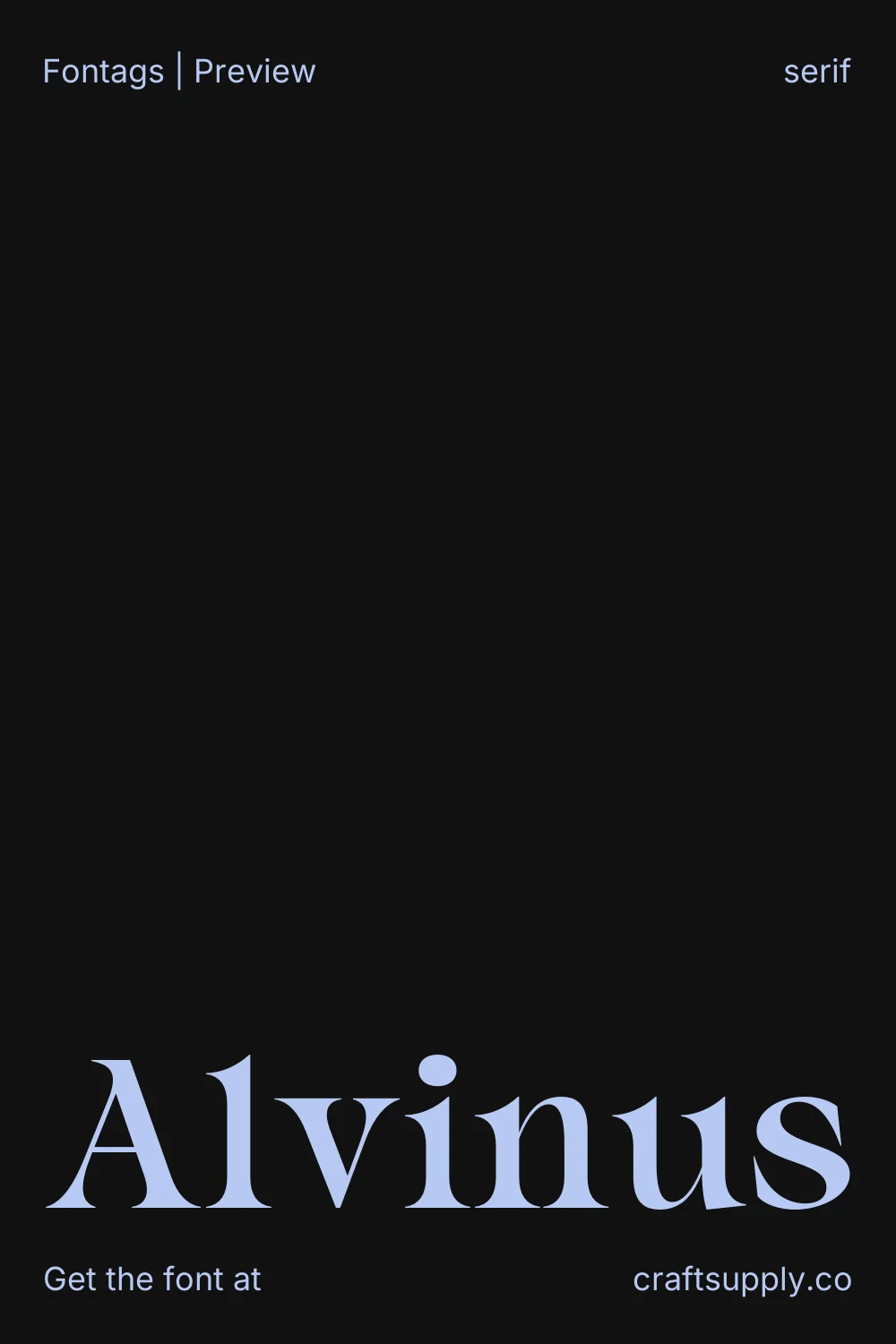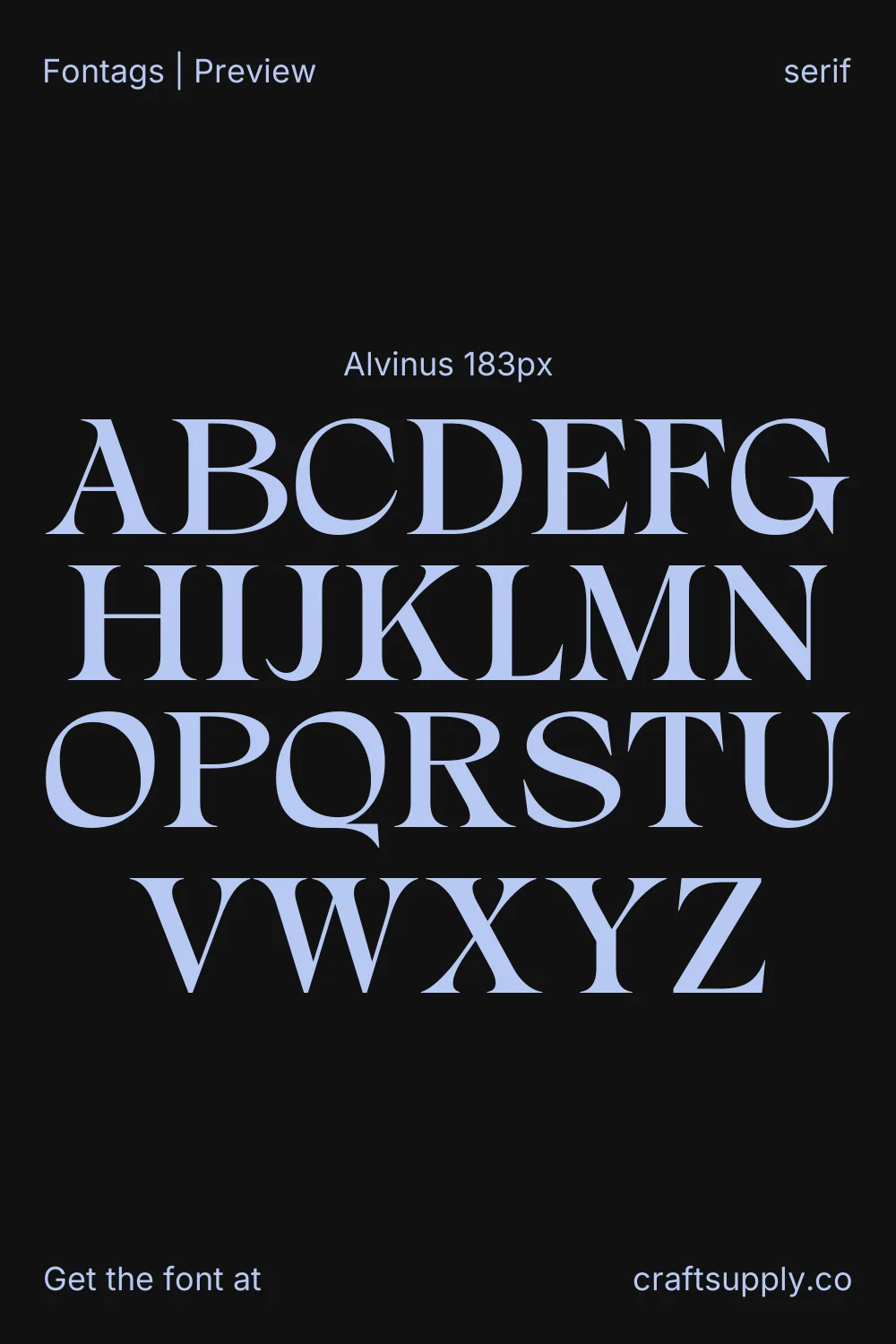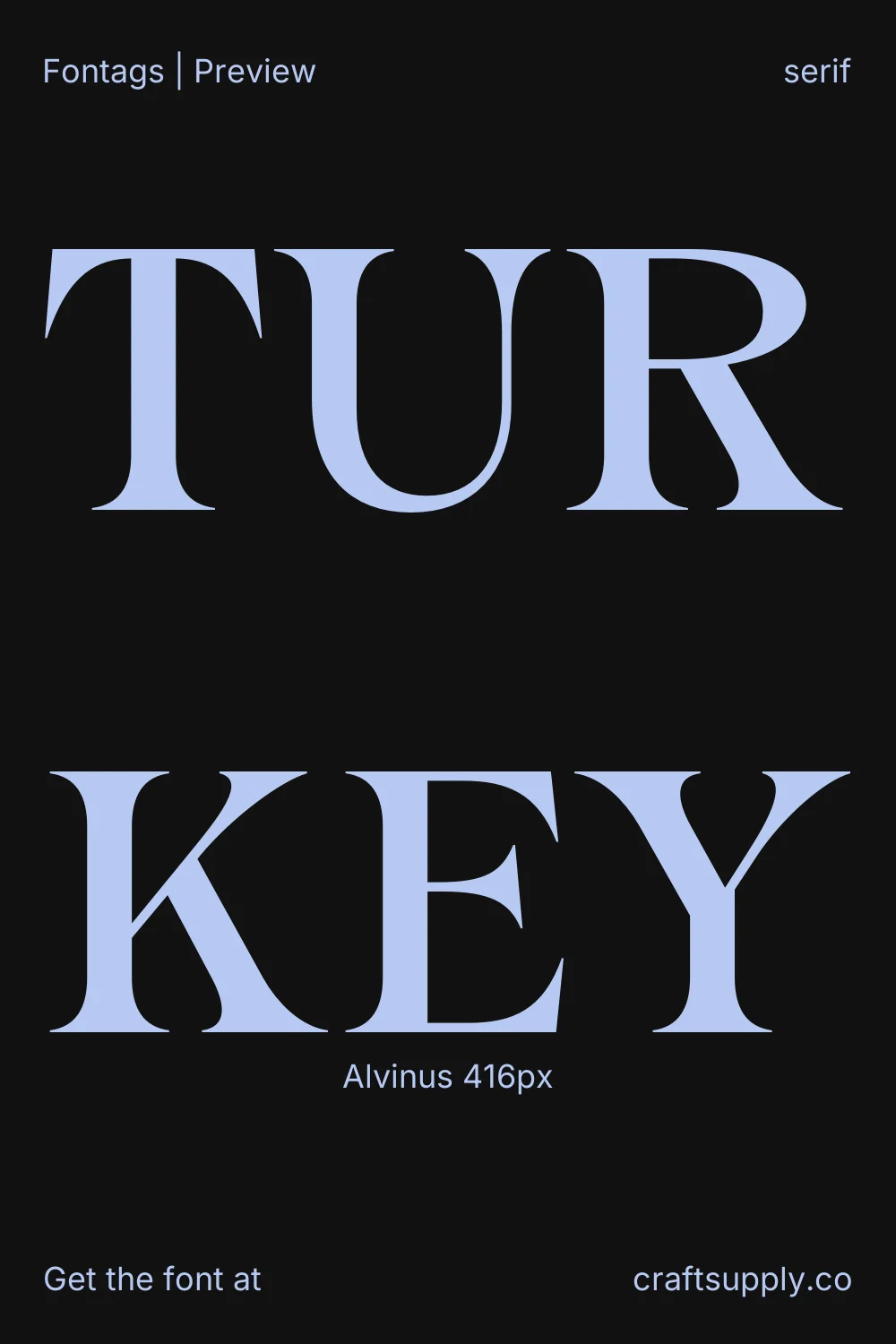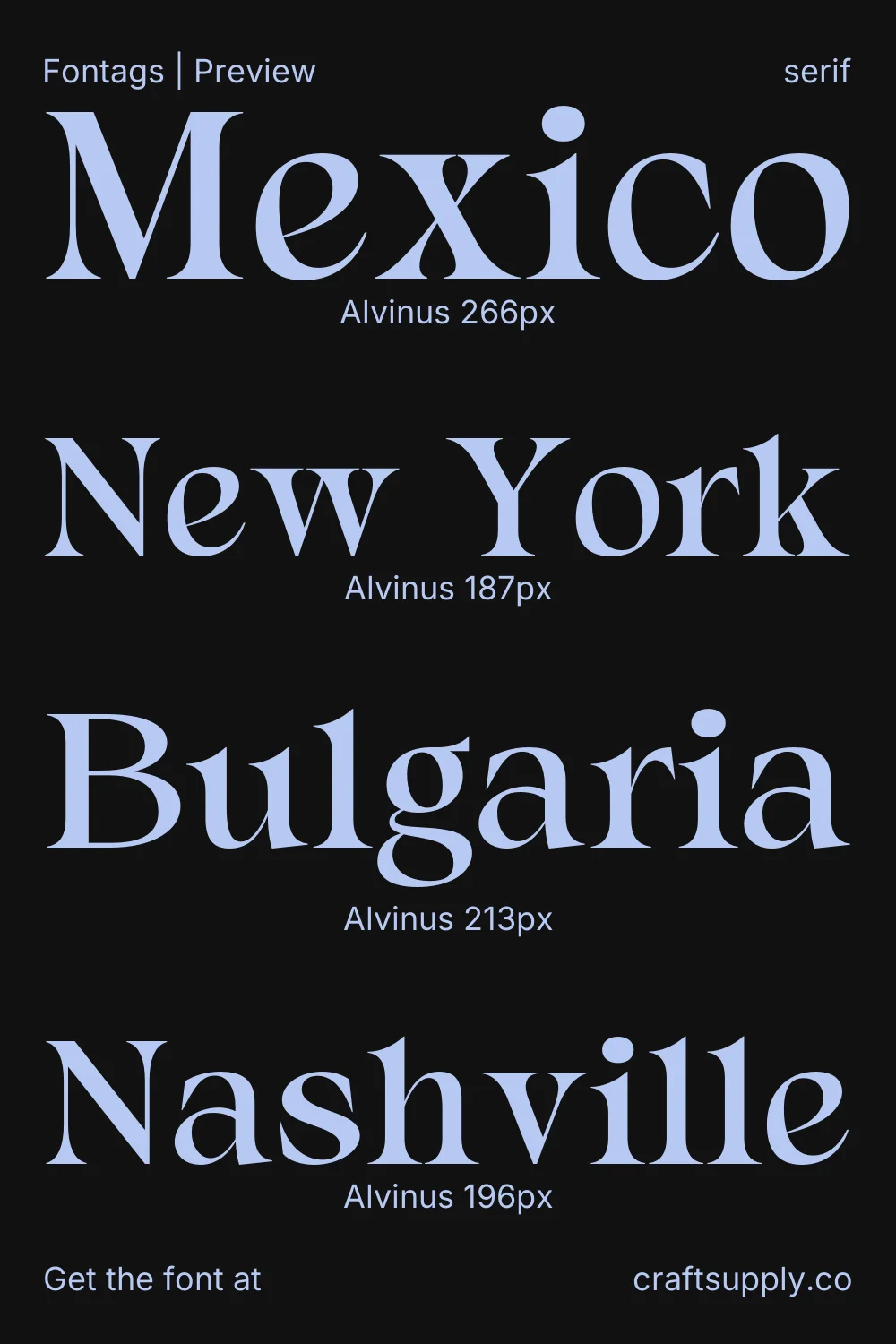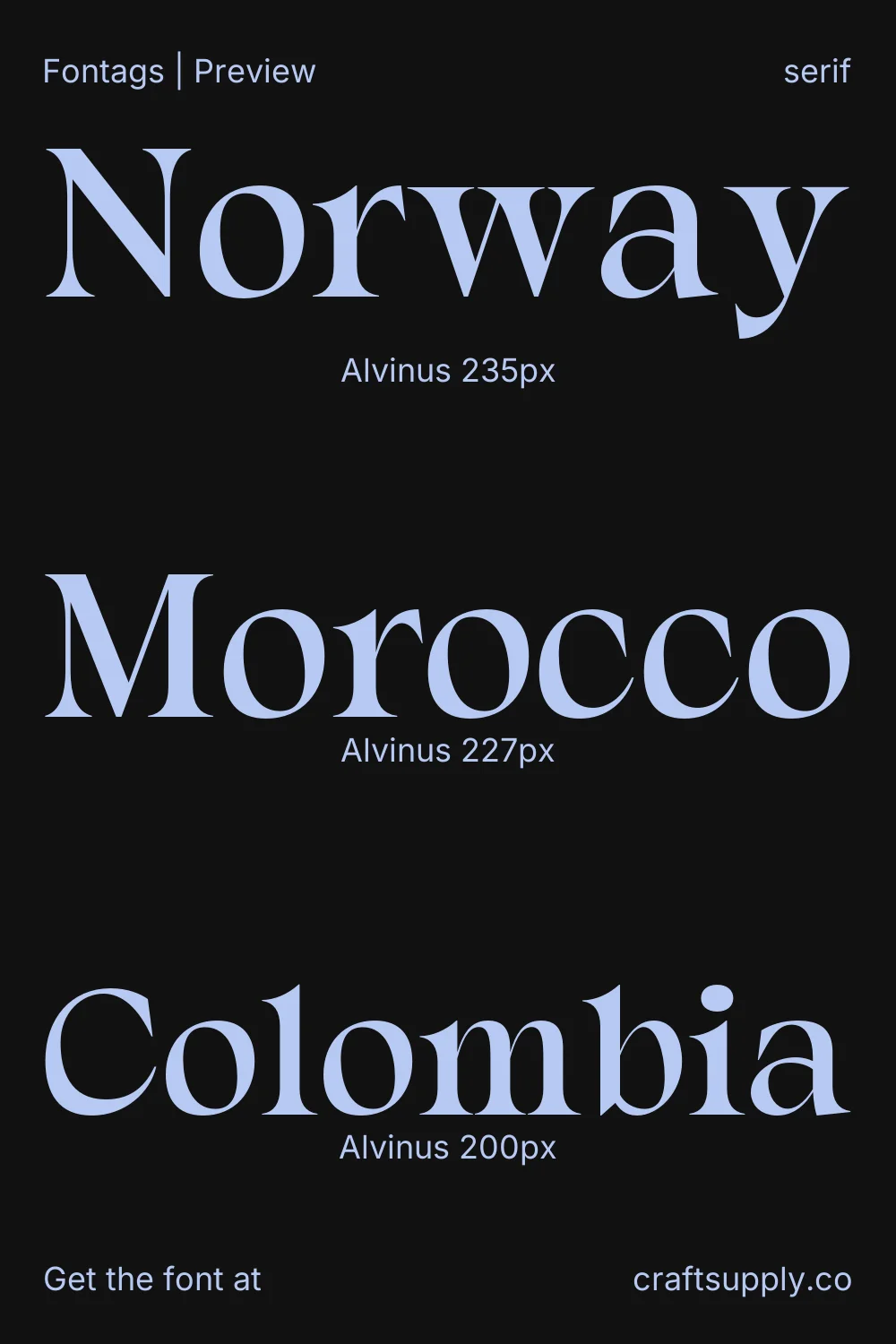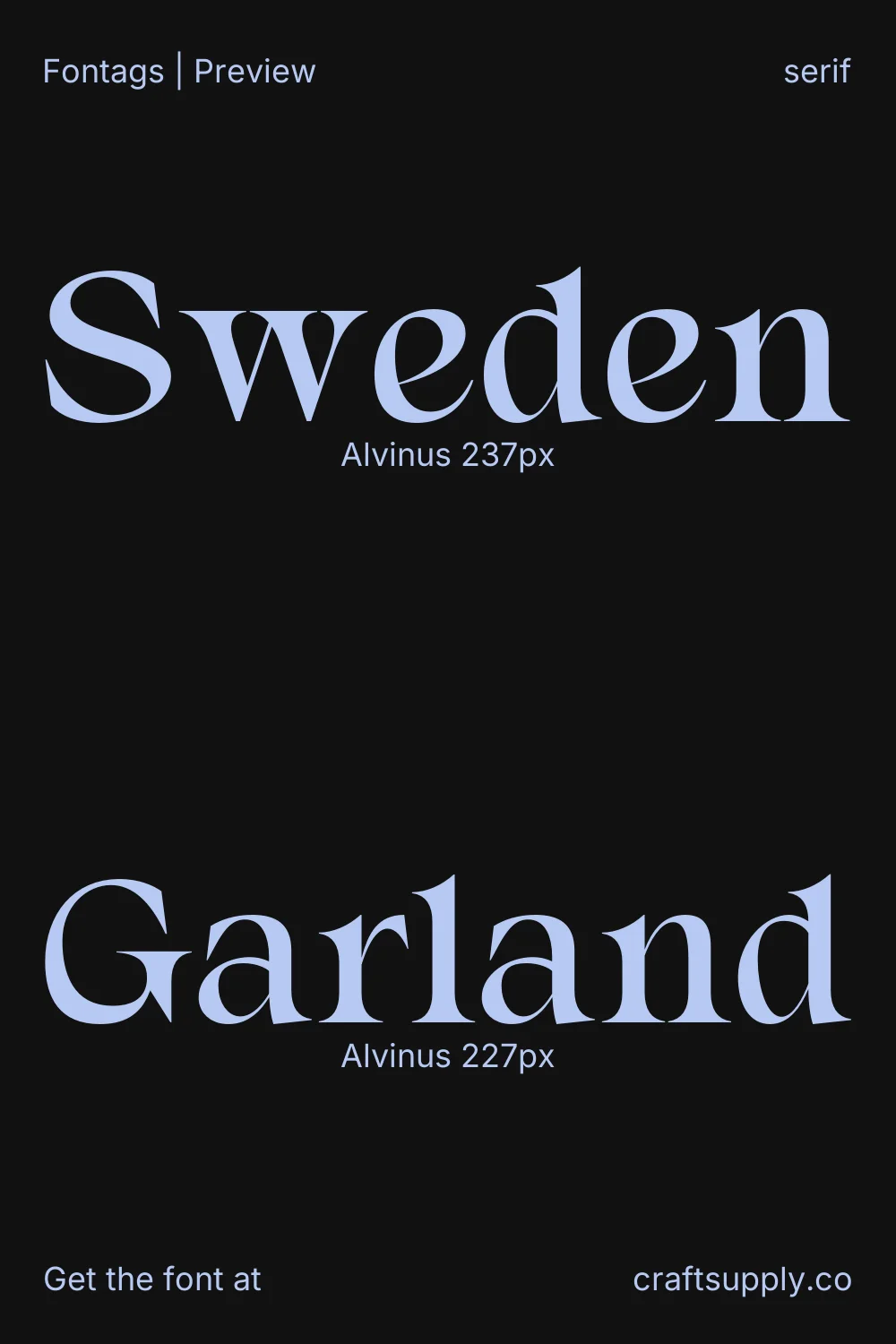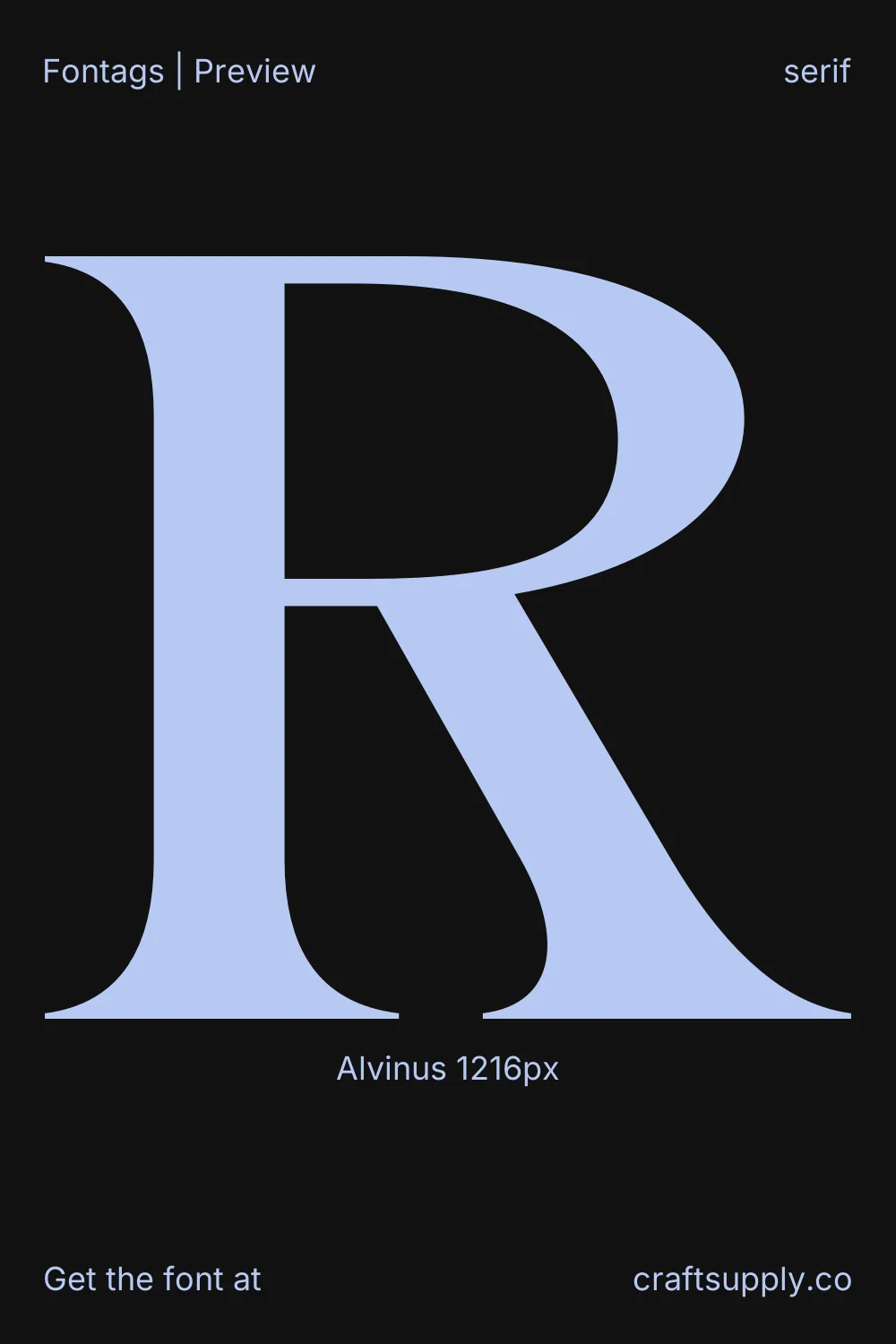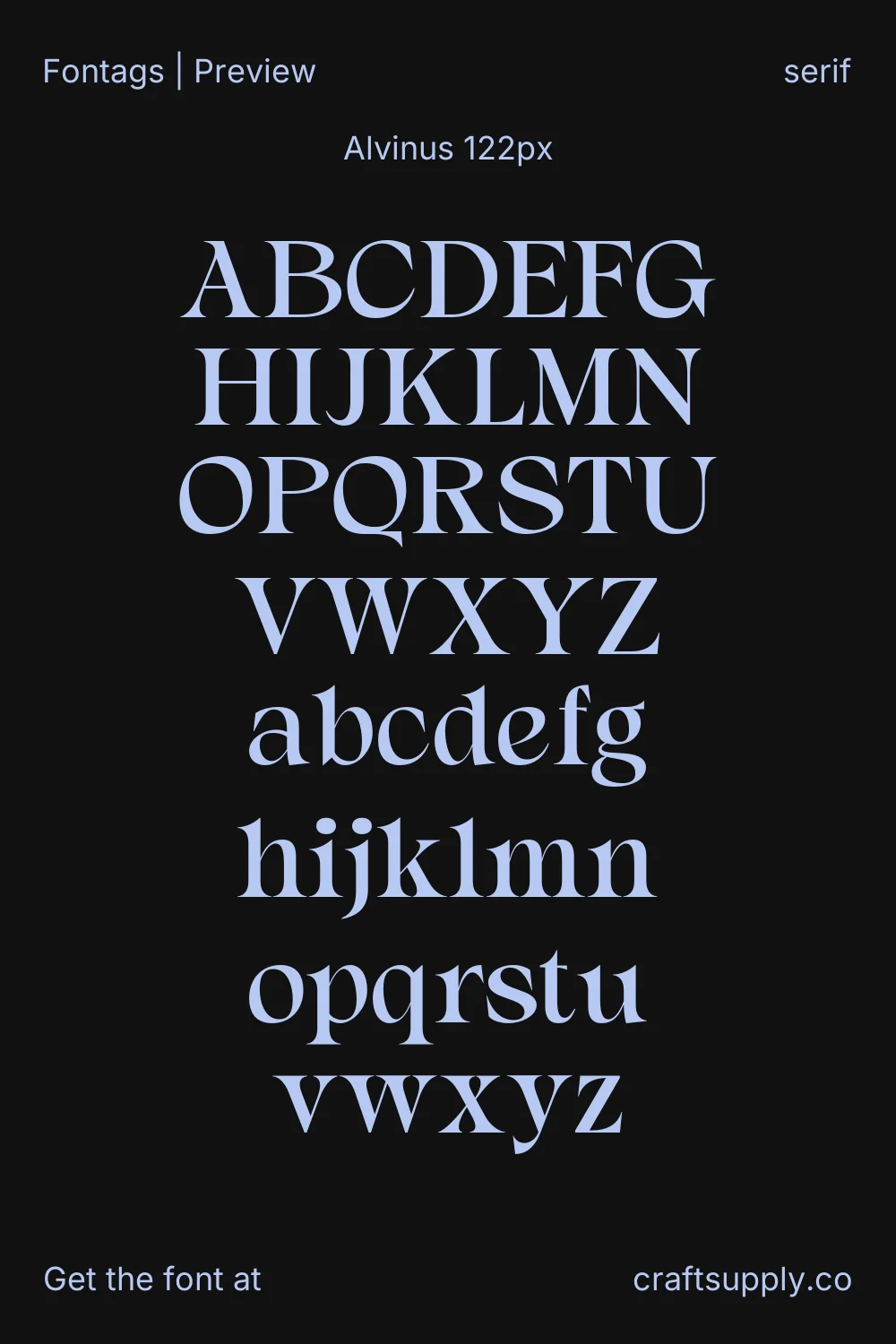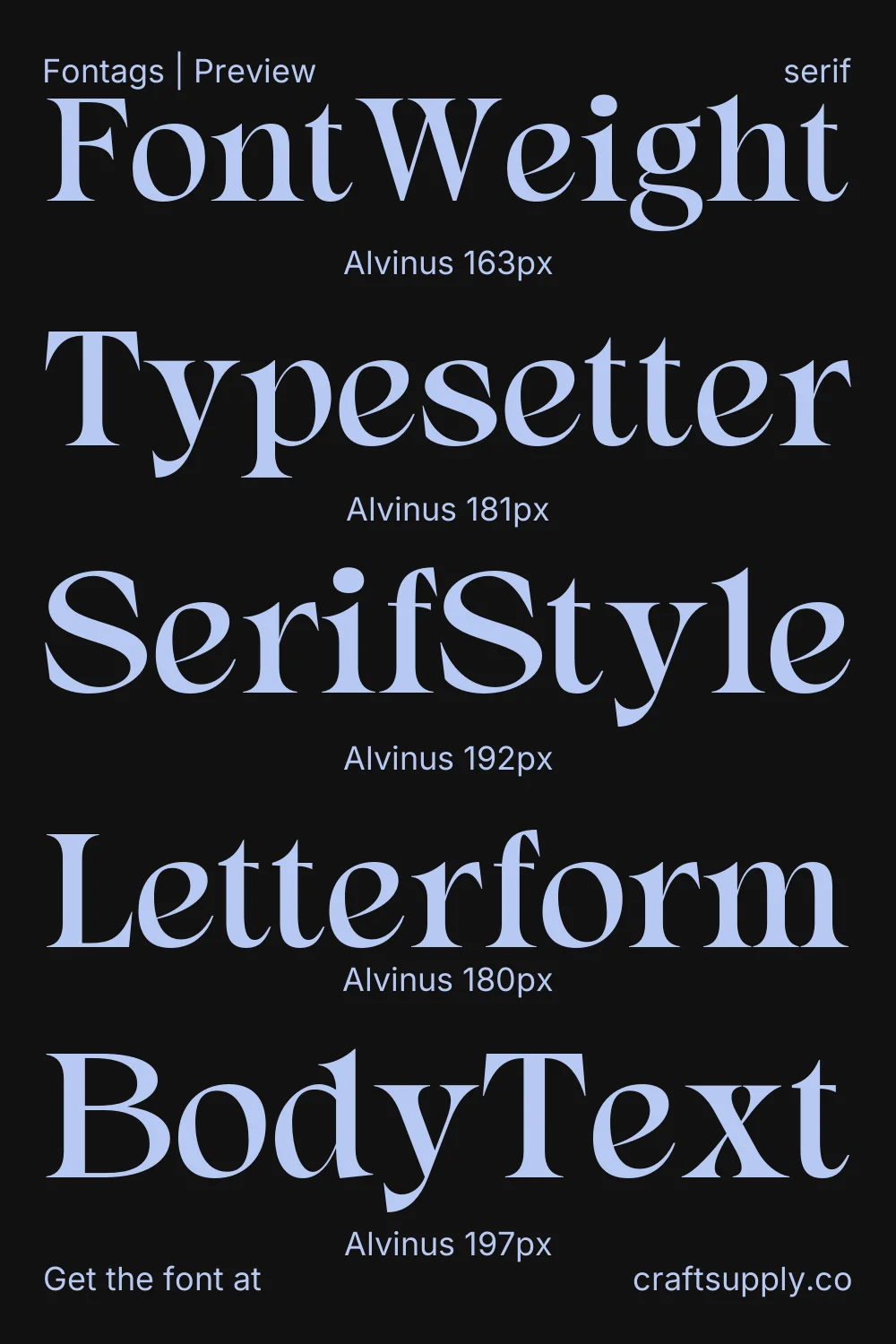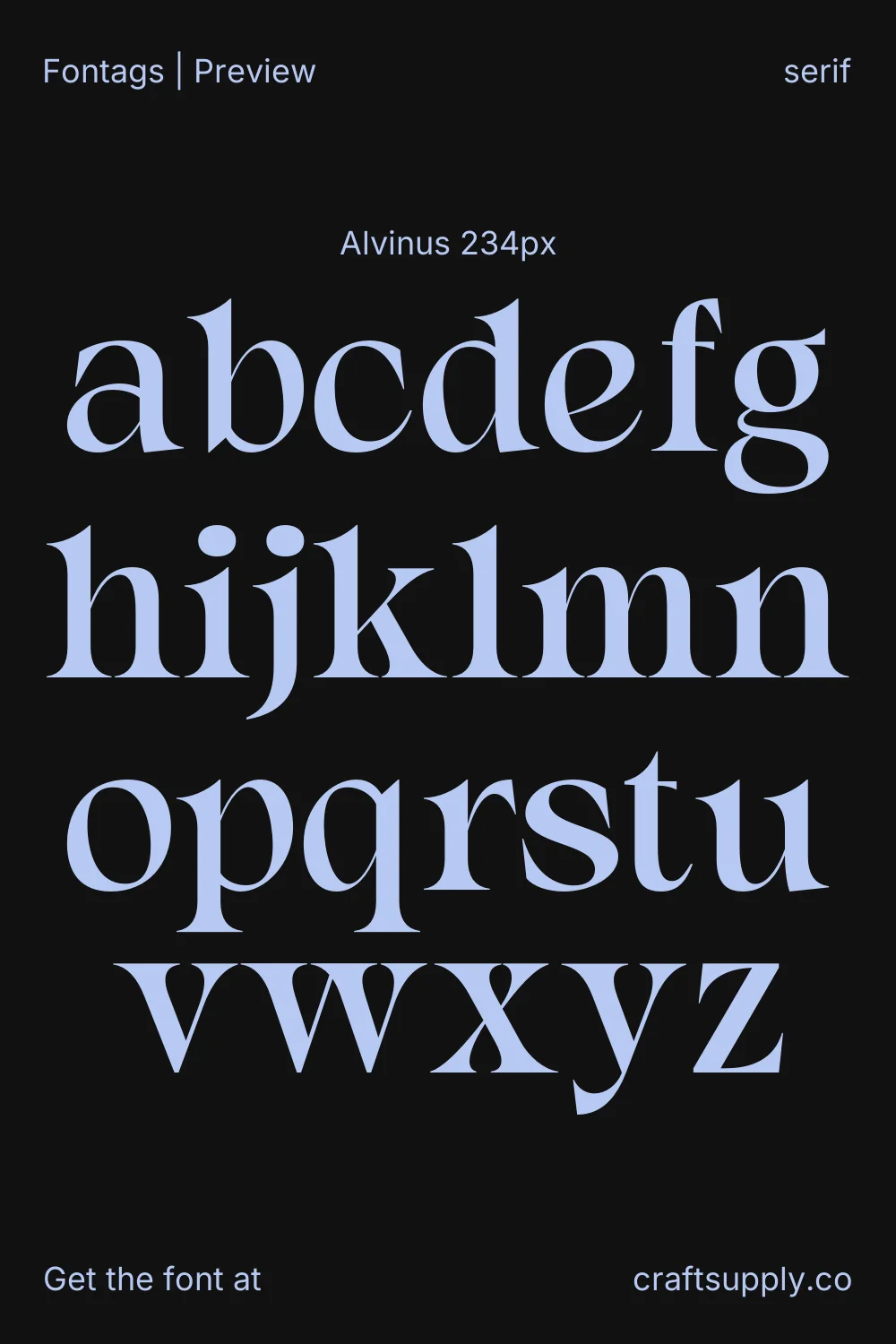
Alvinus
Alvinus is an elegant modern serif font that blends sleek lines with graceful curves for a timeless, sophisticated look. Ideal for branding, editorial layouts, and corporate presentations, it adds a refined touch to any project. Versatile across sizes, it works beautifully in both headlines and body text.